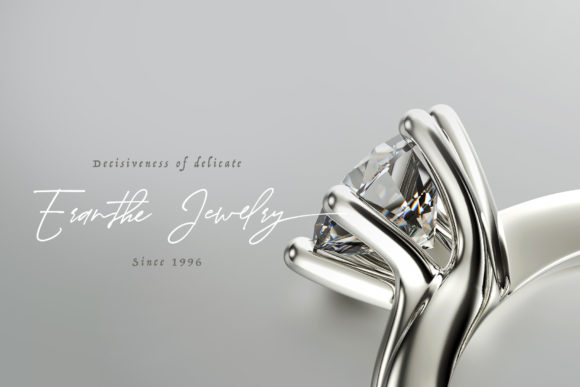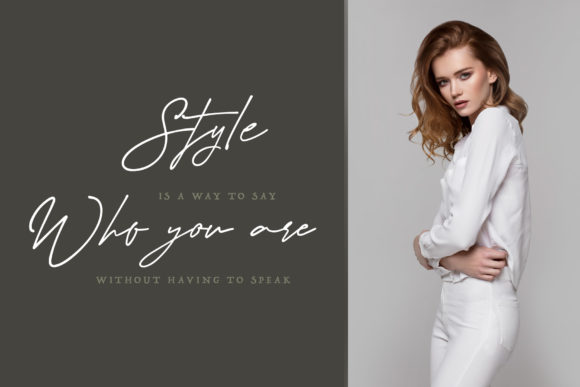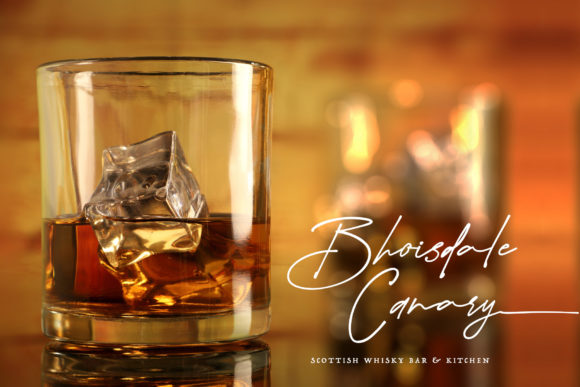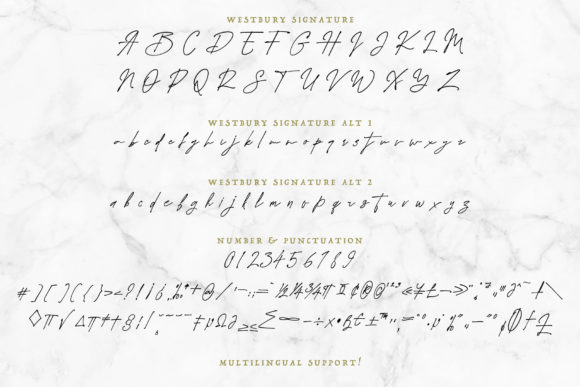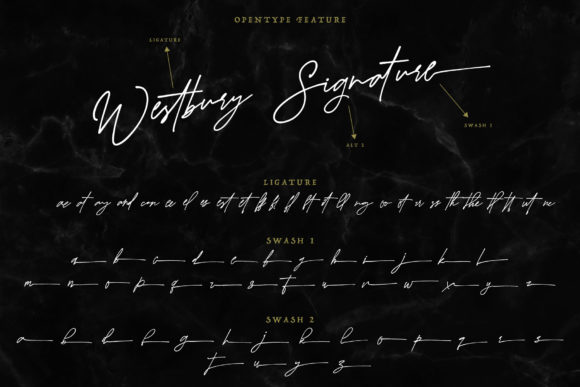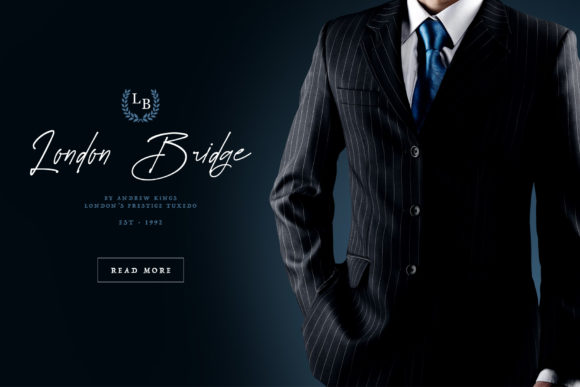
Westbury Signature Font
About Westbury Signature Font
The Westbury is a hand drawn signature font. It has an elegant touch, but will also add a modern feel to your designs.